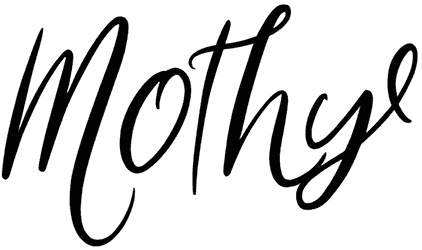
Mothy Font
If you want your writings to shout your message out, crystallize your soul in them using Mothy. This handwritten font has a human background that neutralizes the digital and mechanical aspects of printed writing.
The smooth connections have made it somewhat illegible, which makes the audience spend more time engaging with your design. So if you’re looking to put the flaws in the most beautiful format and highlight human mistakes in your designs, this script font is recommended by RB.